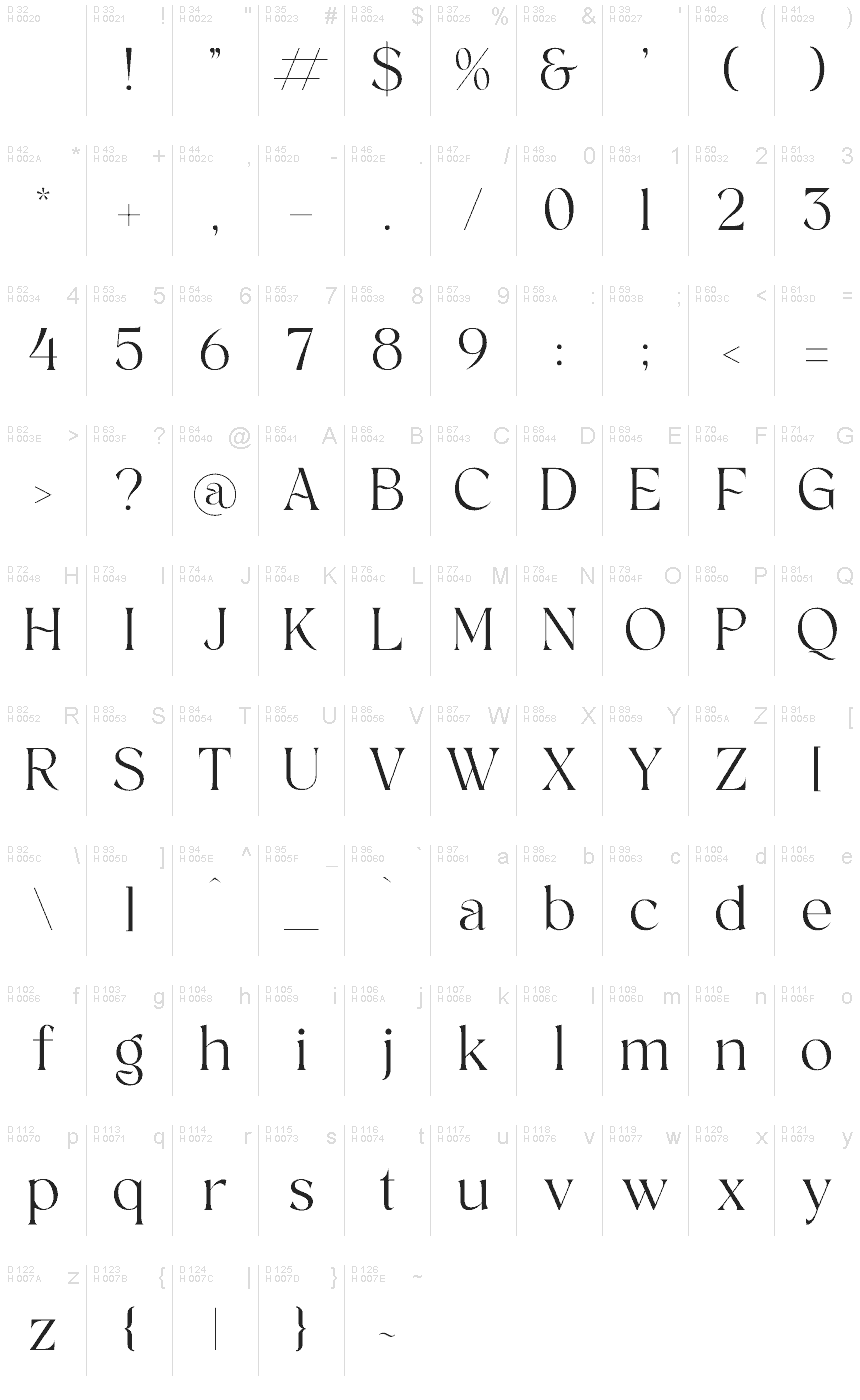
Hefigrah
Hefigrah font is a light serif font designed by Storytype Studio that brings elegance and sophistication to every project. It combines refined serif shapes with modern influences for distinctive character markup in ways to fit contemporary purposes. Its professionally designed outlines give it an attractive ability to communicate fullness and intrigue at face value.